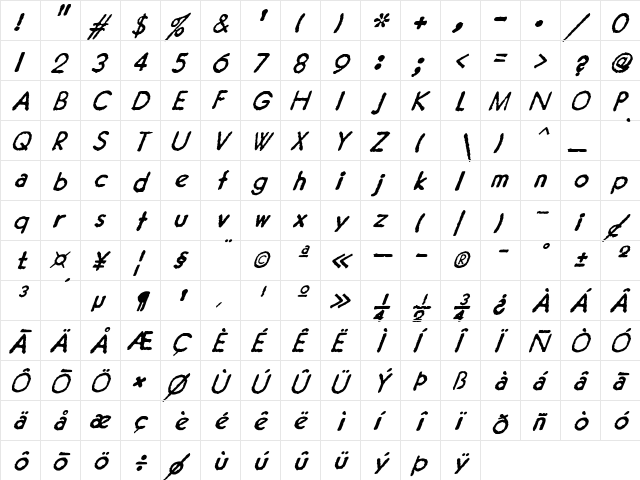
JMH Typewriter Sans Italic Font Preview
Design Context for JMH Typewriter Sans Typeface
JMH Typewriter Sans uses fixed-width spacing throughout, giving it the structured, systematic character associated with coding environments and technical documentation. The dynamic lean of this cut emphasises speed and emphasis in any layout.
Well-suited to data-driven dashboards, coding tutorials, and any design that wants to reference the world of programming.
Pro Tip: Use JMH Typewriter Sans with slightly increased line-height for extended reading — fixed-width spacing can feel dense in longer passages without extra breathing room.